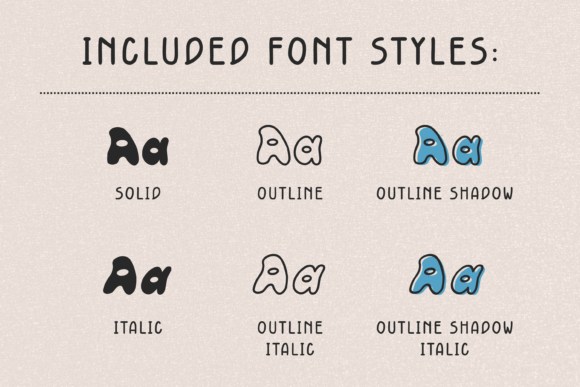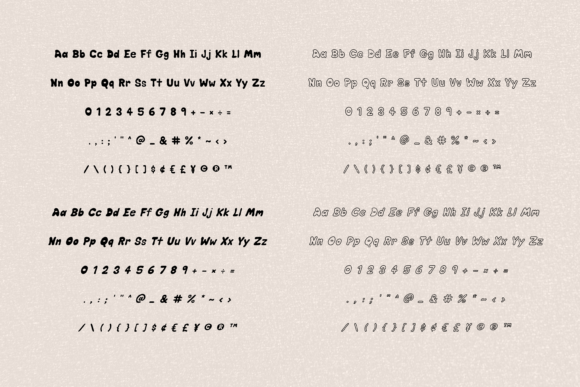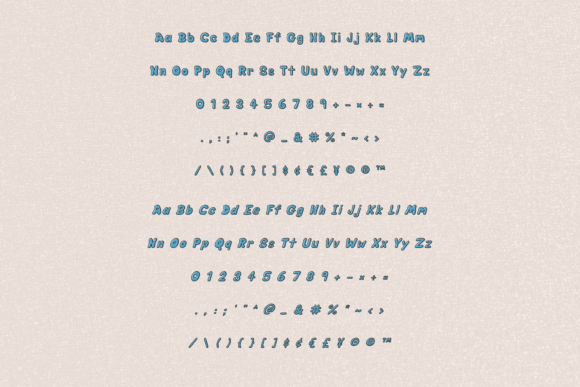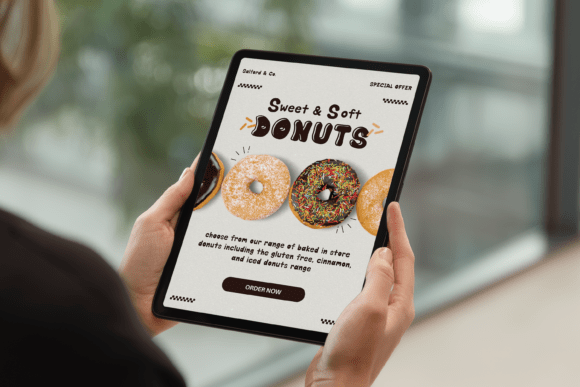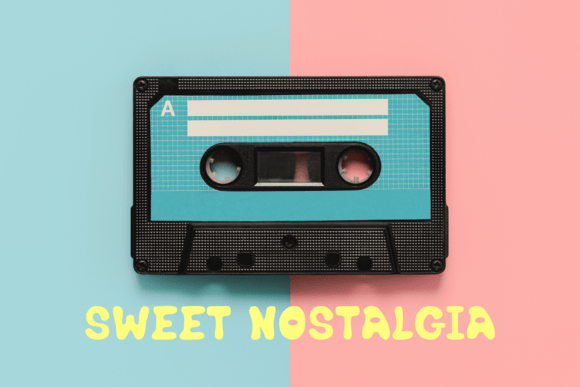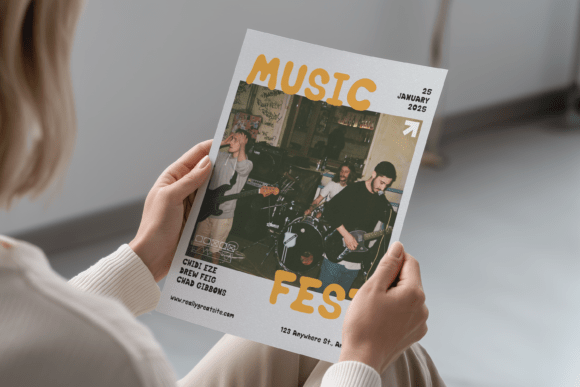
Bubble Soda Font: A Fun and Playful Rounded Font for Creative Projects
Are you looking for a quirky, bold, and friendly font to add personality to your designs? Look no further than Bubble Soda, a bubbly rounded display font that’s perfect for kids’ designs, party invitations, posters, logos, comic books, and all things fun!
Bubble Soda is a hand-drawn font that features six unique styles, giving you endless creative options. The comic-inspired curves and playful vibe make it stand out, whether you’re creating digital art, printable materials, or branding graphics.
What Makes Bubble Soda Special?
- Hand-drawn charm: Bubble Soda has a unique, hand-drawn feel that gives it a personal touch.
- 6 styles included: With six different styles to choose from, you can mix and match to create the perfect look for your project.
- Playful and fun: The bubbly, rounded curves make Bubble Soda perfect for designs that need a playful touch.
- Comic-inspired: The font’s comic-inspired vibe makes it ideal for comic books, graphic novels, and other projects that need a bold, playful look.
Perfect Use Cases for Bubble Soda
Bubble Soda is a versatile font that can be used for a wide range of projects, including:
- Cricut designs: Create stickers, labels, and DIY crafts with a personal touch.
- Procreate lettering and illustrations: Add a playful touch to your digital art.
- Goodnotes / Notability: Create cute digital journaling pages and planners.
- Canva: Design posters, social media graphics, YouTube thumbnails, and printables with ease.
- Kids’ products: Create fun and engaging designs for kids’ birthday invites, classroom worksheets, and more.
- Merch & POD items: Design t-shirts, mugs, cards, and other products with a playful touch.
- DIY holiday crafts: Add a personal touch to your holiday decorations and gifts.
Why Choose Bubble Soda?
With so many fonts to choose from, why should you choose Bubble Soda? Here are just a few reasons:
- Unique and playful: Bubble Soda is a one-of-a-kind font that adds a playful touch to any design.
- Easy to use: The font is easy to read and use, making it perfect for a wide range of projects.
- Customizable: With six different styles to choose from, you can customize your design to fit your needs.
- Fun and engaging: Bubble Soda is perfect for designs that need to be fun and engaging, such as kids’ products and party invitations.
Get Creative with Bubble Soda
Whether you’re a designer, crafter, or DIY enthusiast, Bubble Soda is the perfect font for you. With its playful vibe and versatility, it’s sure to become a favorite in your design toolkit.